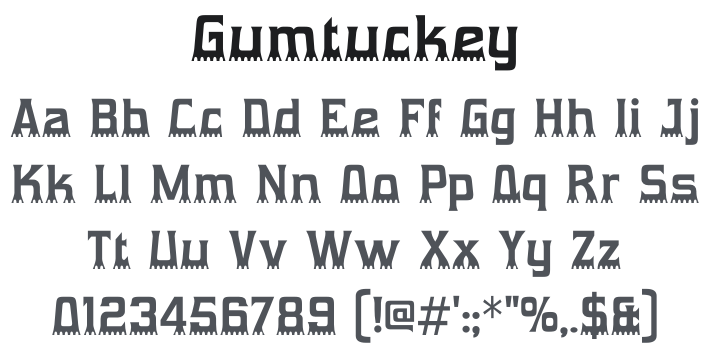
Gumtuckey Font
About Gumtuckey
Gumtuckey is a bold, chunky decorative display typeface with rugged, boot-like letterforms that feel sturdy and grounded — as if each letter has been stomped into shape with thick soles. Its solid, blocky character gives it a playful yet tough personality. Great for outdoorsy branding, novelty headlines, casual posters, and any design that needs a fun, rough-and-ready attitude.